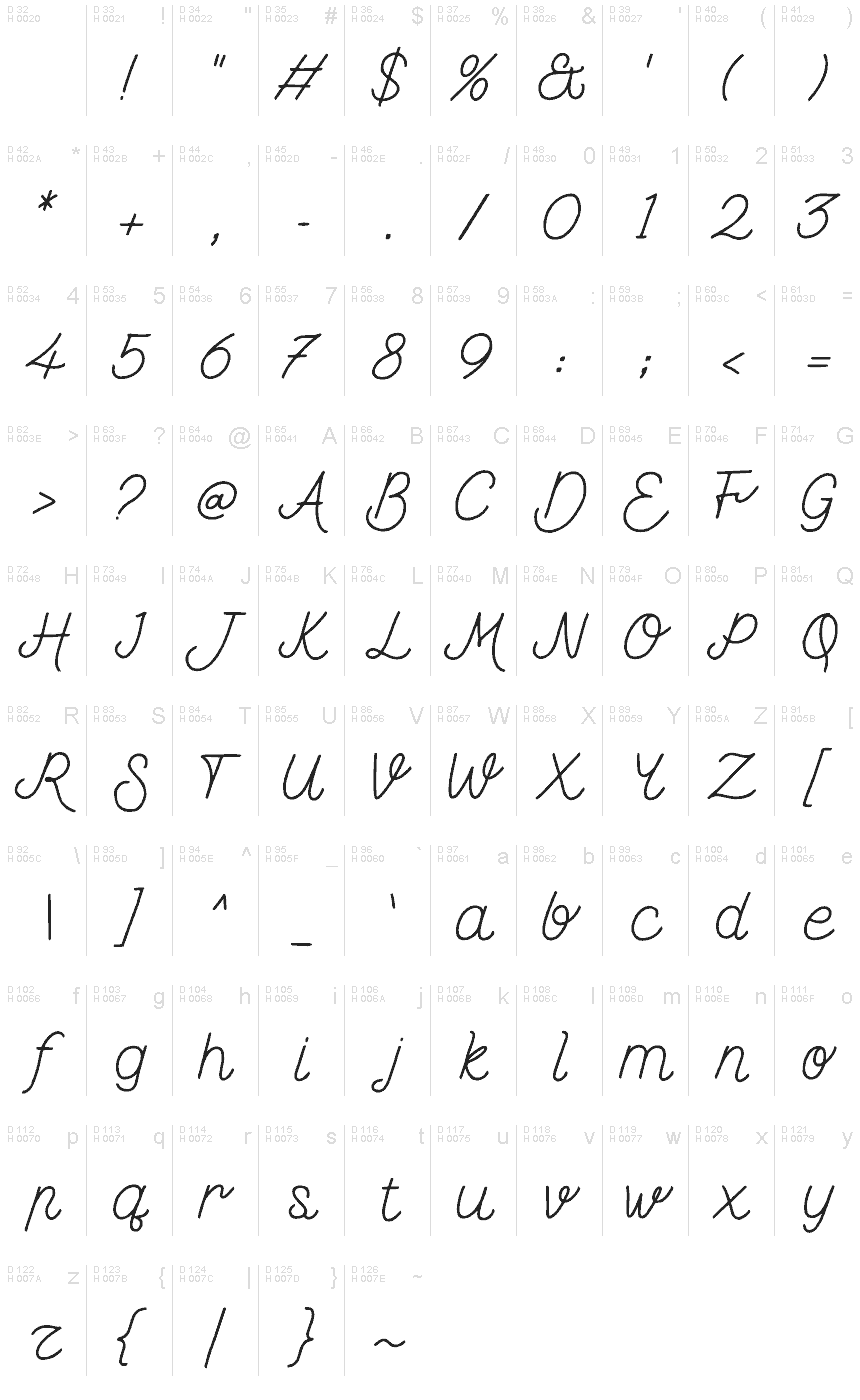
Tello Mallo Italic
Tello Mallo Italic font by Greentrik6789 is a light handwritten font with a graceful appearance and calligraphic influence. This elegant typeface sets itself apart with its smooth stroke transitions and carefully designed character shapes that maintain proper height consistency.